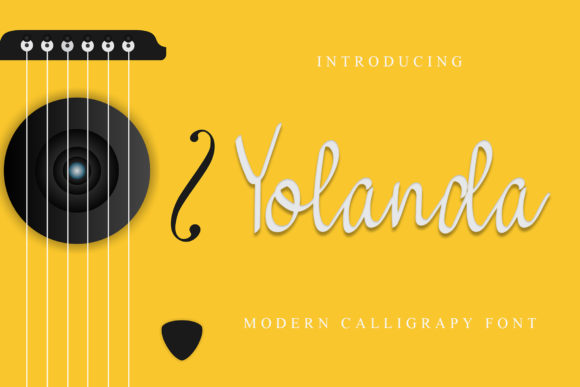
Yolanda Font
About Yolanda Font
Yolanda is a distinct and dainty handwritten font that features sweet and delicate swashes. This original look will appeal to a wide range of crafty ideas, from letterheads and titles, to stationery.